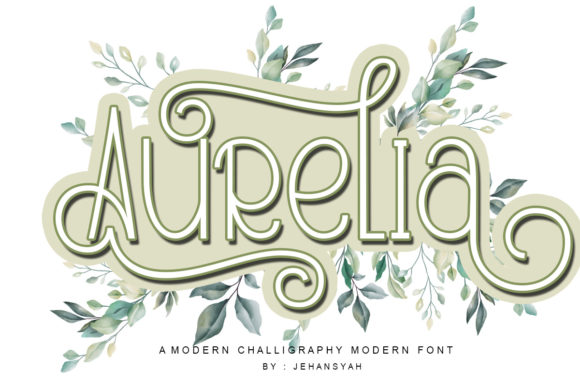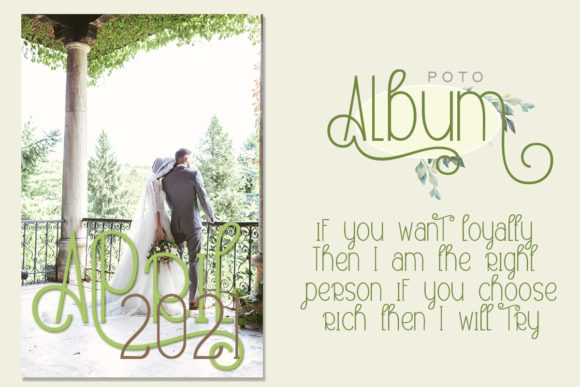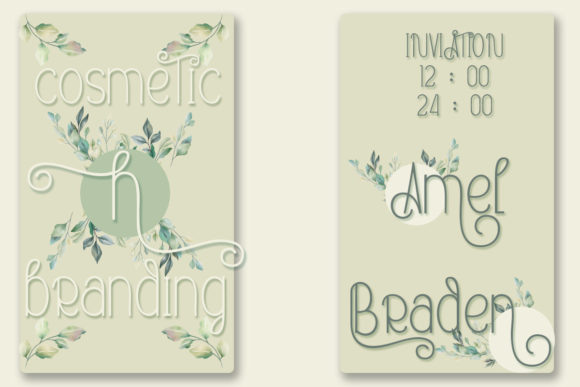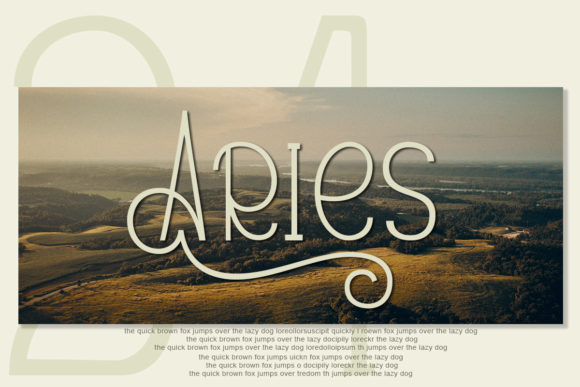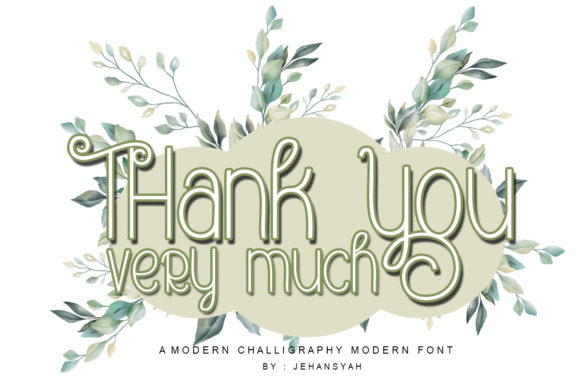
The Perfect Touch: Unleashing the Elegance of Aurelia Font
Have you ever stared at a blank canvas, trying to find the perfect font to bring your design to life? For many of us, it’s that moment of creative frustration that sparks the search for the ideal typography. It’s in those moments that we discover fonts like Aurelia, a thin, distinct, and organic display font that can elevate any project.
Aurelia Font is designed to add a touch of sophistication and elegance to your designs, making it perfect for fashion branding or editorial designs. With its smooth curves and unique character, it’s sure to make your projects stand out. Whether you’re a seasoned designer or just starting out, Aurelia Font is a valuable addition to your toolkit, offering a level of versatility and style that’s hard to find.
Aurelia Font Key Features
- Font Size: The font comes in 3 weights: Light (400), Regular (500), and Bold (700), offering flexibility for various design applications.
- Unique Characteristics: The font features a unique blend of modern and elegant elements, with subtle flair and intricate details that set it apart from other sans-serif fonts.
Aurelia Font Review
As a designer, I was excited to dive into the Aurelia Font and see what it had to offer. Overall, I’d say it’s a solid choice for any project, but with a few caveats. ✨
- ✨ Elegant and refined design: The Aurelia Font has a sophisticated look that’s perfect for luxury or high-end projects.
- ✨ Extensive character set: The font includes a wide range of characters, including ligatures, fractions, and more, making it a great choice for complex layouts.
- ⚠️ Limited font weights: While the font is elegant, it’s a bit limited in terms of font weights, which may not be ideal for projects that require a wide range of options.
- ⚠️ Some characters may not render correctly: In my testing, I noticed a few instances where characters didn’t render as expected, particularly in smaller font sizes.
Overall, I’d say the Aurelia Font is a great choice for projects that require an elegant, refined look. However, its limitations in terms of font weights and character rendering may make it less suitable for more complex or experimental designs.
Aurelia font is ideal for:
- Creating elegant and sophisticated designs.
- Adding a touch of luxury to titles and headings.
- Creating custom typography and graphic elements.
Alternative Fonts to Aurelia Font
Montserrat is a modern sans-serif font that is perfect for digital applications and websites. It is highly legible and versatile, making it suitable for various typography needs. Montserrat is more geometric and clean compared to Aurelia Font, which has a more rounded and elegant feel. Use Montserrat for digital products, apps, and websites where a modern and minimalist aesthetic is desired.